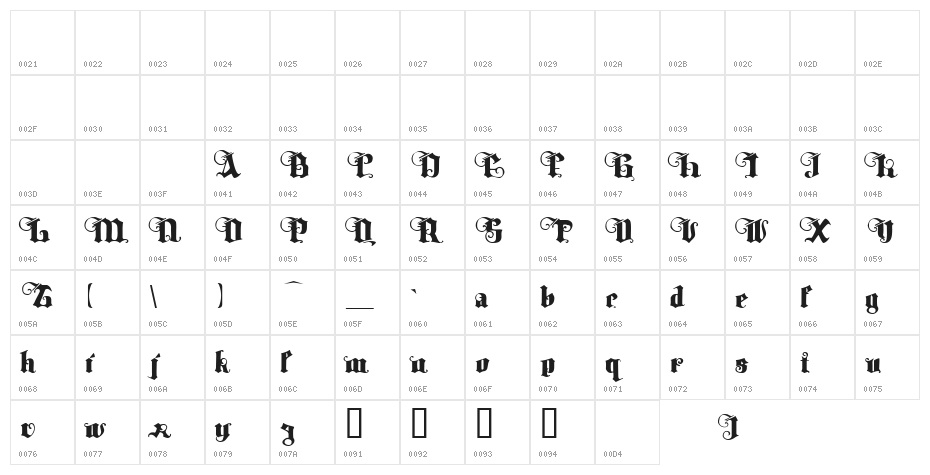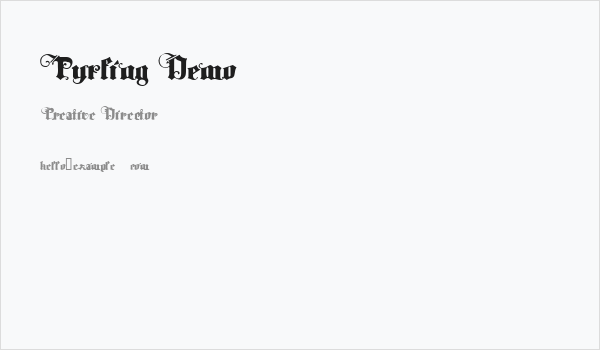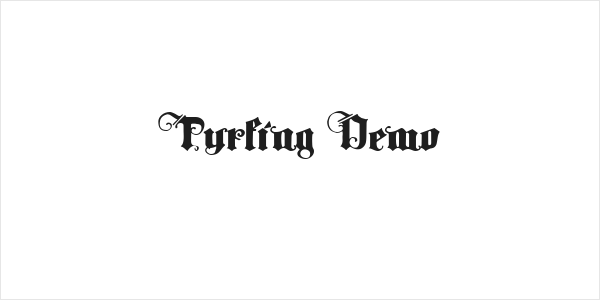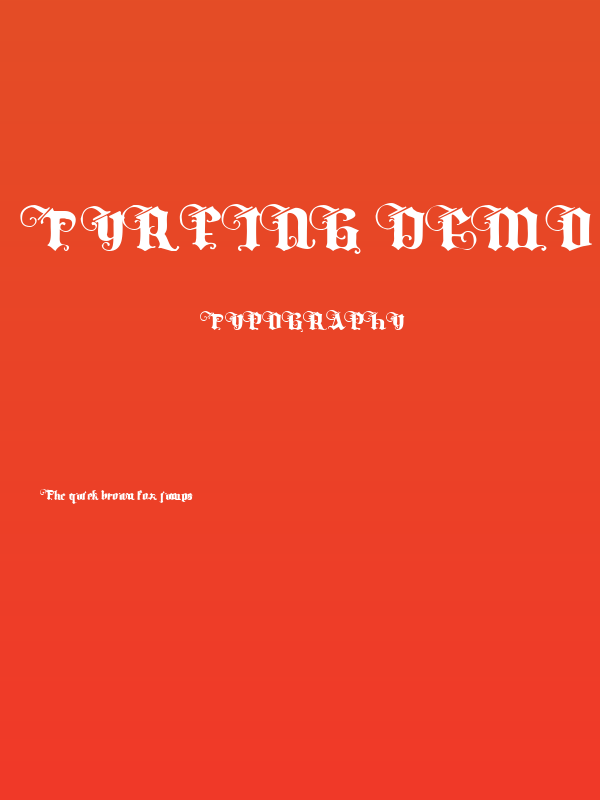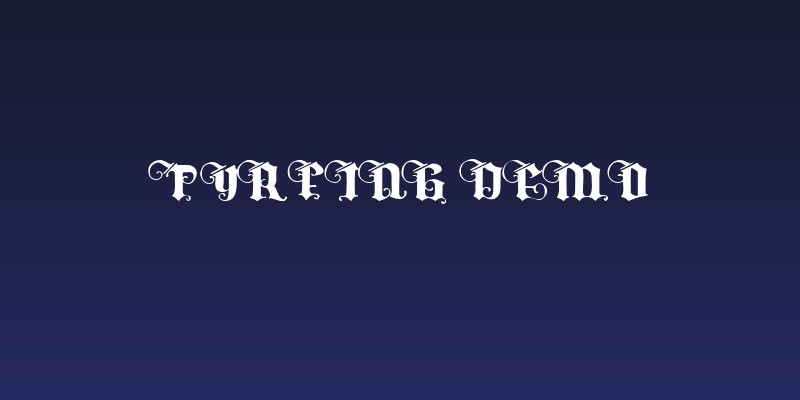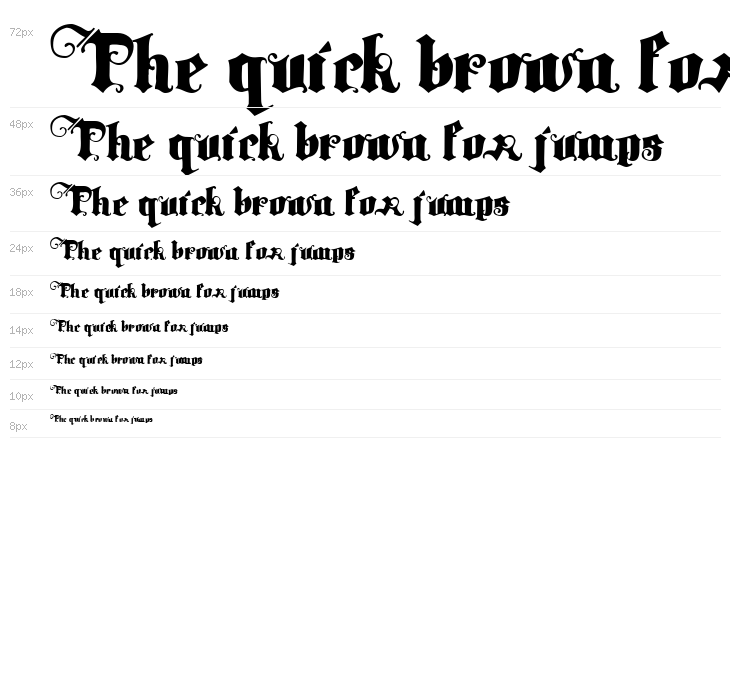
Tyrfing Demo Font
Tyrfing Demo Description
This font exhibits a bold and intricate blackletter style, characterized by its ornate and angular letterforms. The uppercase letters are adorned with elaborate flourishes and sharp edges, creating a dramatic and historical appearance. The lowercase letters maintain the same level of detail, with distinctive curves and pointed terminals. The overall design is reminiscent of medieval manuscripts, offering a sense of tradition and elegance. The font's heavy weight and decorative elements make it stand out, suitable for projects that require a touch of gothic or vintage flair.
| Proposed Projects | Ideal for historical-themed designs, gothic posters, vintage book covers, and decorative signage. |